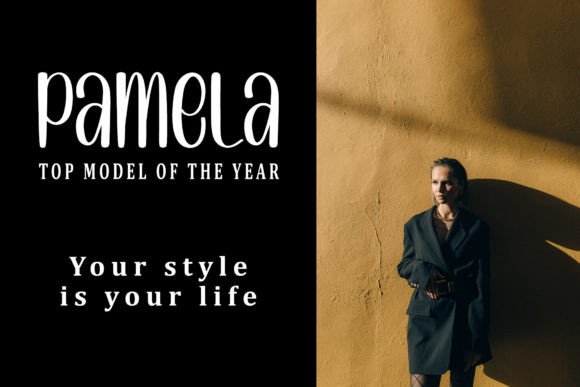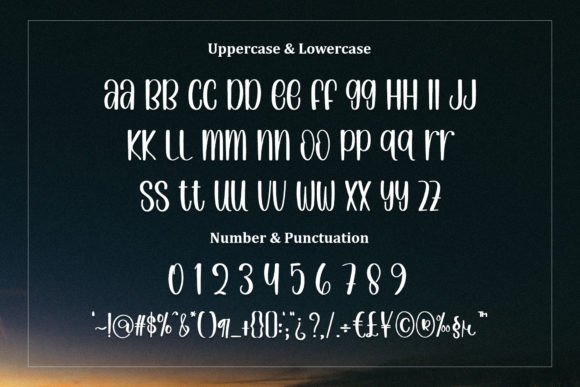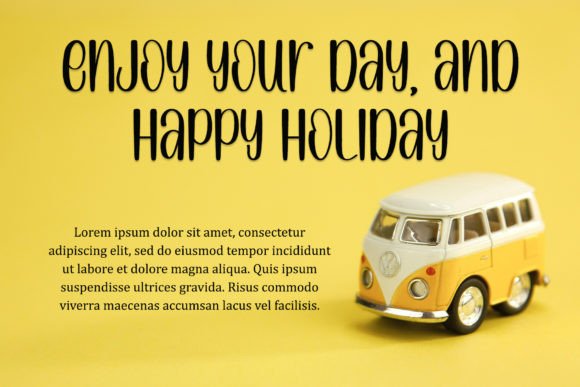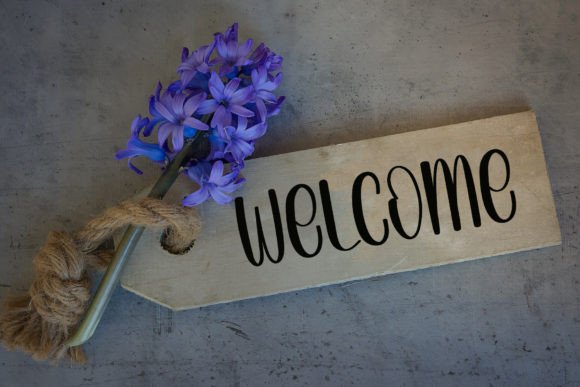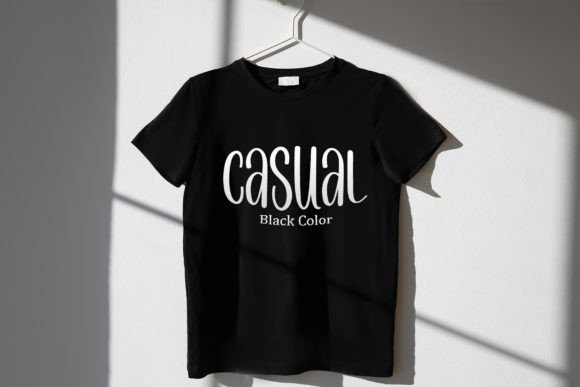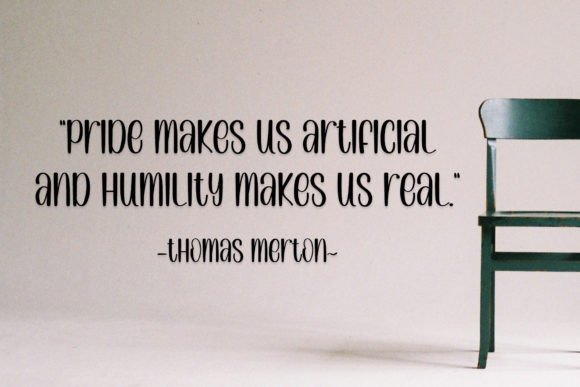
Introduction to Short Movie Font
Remember that moment when you stumbled upon the perfect design element that elevated your entire project? It’s like a breath of fresh air, a game-changer that takes your creative vision to the next level. For designers, finding that elusive ‘something special’ can be a thrilling experience, and I’m excited to share with you a new discovery that’s sure to become your go-to design resource.
Meet the Short Movie Font, a stunning handwritten font that exudes elegance and sophistication. With its unique, timeless style, this font is perfect for designers seeking a high-quality addition to their creative projects. Whether you’re working on a branding project, a social media campaign, or a stunning graphic design, the Short Movie Font is sure to impress.
Key Features of Short Movie Font
- High-quality font design for creative projects, suitable for use in short movies, animations, and video editing.
- Designed with a unique, modern aesthetic, making it perfect for adding a touch of sophistication to your creative project.
- Perfect for use in titles, credits, and other on-screen text elements, thanks to its clean and legible design.
Honest Review: Short Movie Font
I recently came across the Short Movie Font while searching for a design resource for a creative project. I was immediately drawn to its high quality and versatility, making it perfect for various applications, from film titles to social media graphics.
- ✨ Clean and modern design that stands out in a crowd
- ⚠️ Limited font variations and styles, which may not be suitable for complex designs
- ⚠️ May not be ideal for use in body text due to its large size and bold design
Overall, I’m impressed with the Short Movie Font and its potential to elevate any creative project. While it may not be perfect for every design, its high quality and free download make it a valuable resource for designers looking for a stylish and modern font.
For optimal results, use the Short Movie Font in conjunction with other design elements that complement its style. Common use cases include:
1. Film titles and credits.
2. Graphic design elements, such as logos and icons.
3. Presentation titles and headings.